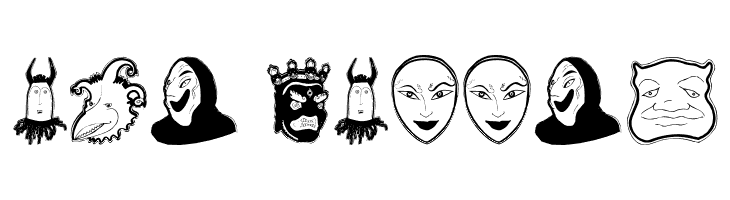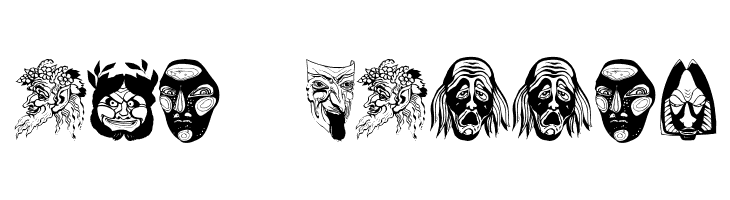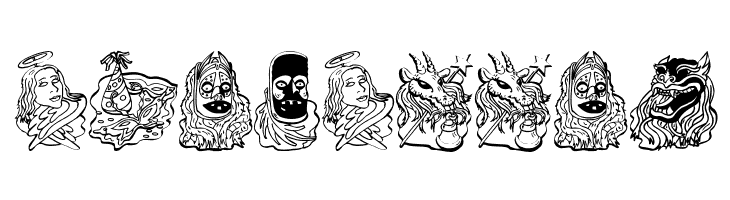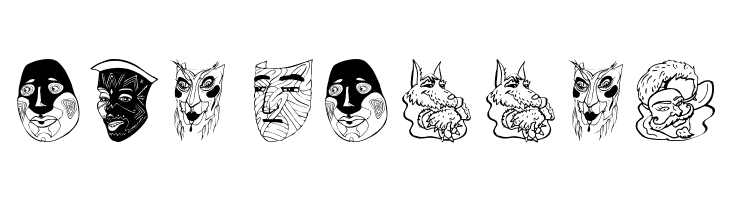
A decorative dingbat font of diverse mask illustrations.
A display font made up of diverse, stylized mask illustrations.
A whimsical, mask-themed decorative font with hand-drawn illustrations.
A decorative display font made of diverse, detailed mask illustrations.
Decorative font with illustrated masked faces as glyphs.
A display font where each character is a distinct illustrated mask.
A display font made of intricate, mask-inspired illustrations for each character.
Hand-drawn, mask-themed decorative font with unique illustrations for each character.